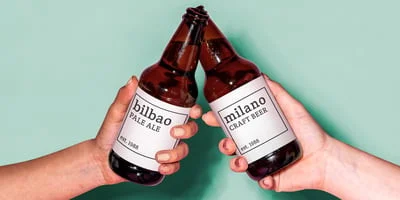
Crete Font
The Crete Font is a robust and often historically inspired serif typeface, characterized by its strong, confident presence and a subtle nod to classical or engraved lettering. Imagine its commanding characters gracing the covers of historical fiction novels, adding an authoritative yet artistic touch to museum exhibit titles, or creating impactful signage for academic institutions and cultural heritage sites. Its sturdy serifs, balanced proportions, and often slightly condensed forms also make it an excellent choice for branding for traditional businesses, elegant editorial layouts, prestigious certificates, and any design where gravitas, tradition, and uncompromising clarity are paramount. Crete Font delivers with its unwavering quality, ensuring your message is conveyed with supreme confidence and a timeless, established aesthetic.
What makes Crete Font so exciting is its unique ability to evoke a sense of ancient strength and enduring wisdom. In a visual landscape often saturated with modern or overly decorative fonts, this font stands out with its powerful visual impact and remarkable legibility, even in demanding environments. It’s more than just a typeface; it’s a design element that can instantly set a formal and esteemed tone for a project, making content feel more credible and impactful. Designers will find it an invaluable asset for crafting visuals that truly resonate with an audience seeking security, professionalism, and a profound sense of heritage, drawing inspiration from classical inscriptions or early printing.
The Crete Font family is typically structured to offer a range of weights and styles that amplify its formal and robust appeal. Beyond the primary Crete Regular typeface, you might find companion styles such as a more impactful Crete Bold for stronger emphasis, or perhaps Crete Light for a slightly less imposing presence while maintaining its characteristic strength. Given its often historical or display roots, the family may also include variations optimized for specific uses, or specialized characters found in formal documentation. These diverse family members provide designers with the flexibility to establish a clear typographic hierarchy and maintain a consistent, authoritative, and traditional aesthetic across all elements of their project, from prominent official titles to detailed fine print, always with a solid and reliable feel.
For projects demanding unyielding clarity, traditional authority, and a dignified, precise aesthetic, consider the powerful Crete Font. It's an excellent choice to establish gravitas and professionalism in your designs.